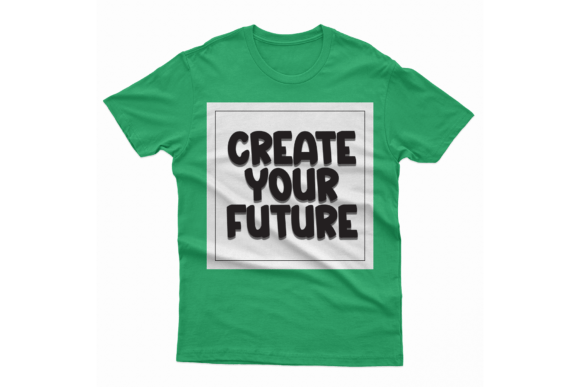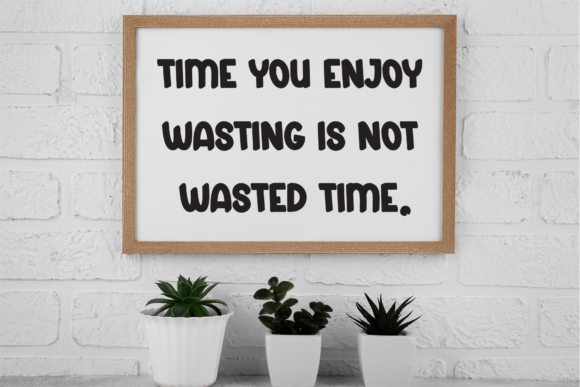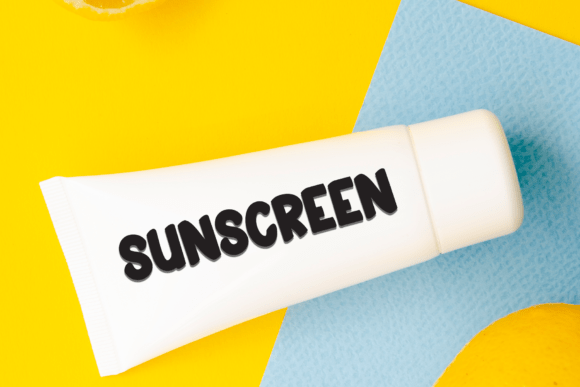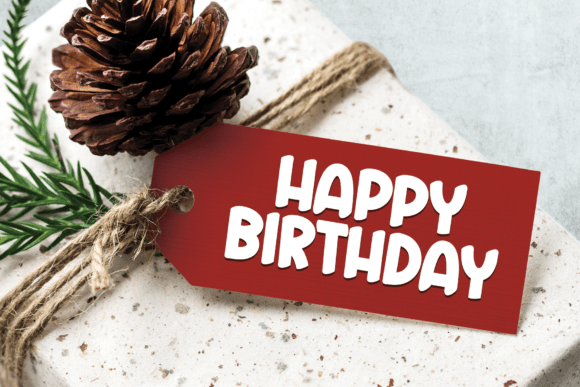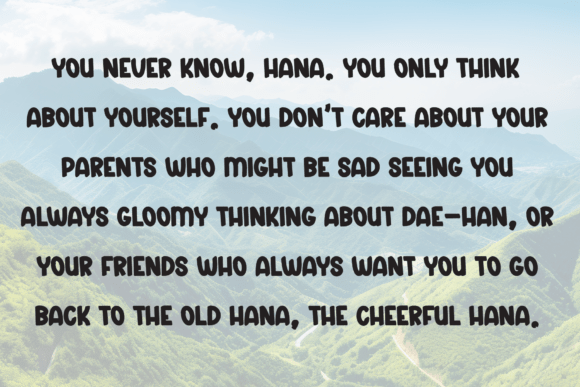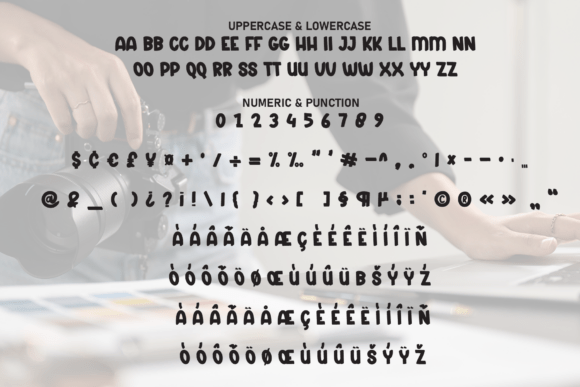
Introduction to Designer Photograph Font
You’ve spent hours pouring over your latest creative project, carefully selecting the perfect color palette, and crafting a message that truly resonates with your audience. But, what’s missing is that final touch – the perfect font to bring it all together. Enter the Designer Photograph Font, a stunning display font designed to add warmth and clarity to your designs.
With its clean structure and approachable style, the Designer Photograph Font is an invaluable resource for designers looking to elevate their branding, headlines, and everyday designs. Its balanced letterforms offer unparalleled readability and charm, making every message feel genuine and inviting. Whether you’re working on a high-quality design project or need a reliable design resource, the Designer Photograph Font is sure to deliver.
- Unique, stylish design elements that add a touch of sophistication to any creative project.
Honest Review: Designer Photograph Font
I recently stumbled upon the Designer Photograph Font while searching for a high-quality design resource for a creative project. As a designer, I’m always on the lookout for unique and versatile fonts that can elevate my work.
Here’s what I like about this font:
- ✨ High-quality design: The font is well-designed and visually appealing, making it perfect for any creative project.
However, there are a few limitations I’d like to mention:
- ⚠️ Limited characters: The font has a limited character set, which might not be suitable for long texts or complex content.
- ⚠️ Not ideal for body text: While the font is great for headlines or titles, it’s not the best choice for body text due to its unique style.
Overall, I’m impressed with the Designer Photograph Font and would recommend it for designers looking for a high-quality, creative font for their projects.
The Designer Photograph Font is perfect for a variety of creative projects, including social media graphics, promotional posters, presentations, and documents. It’s also a great design resource for photographers and designers who want to add a touch of elegance to their work.